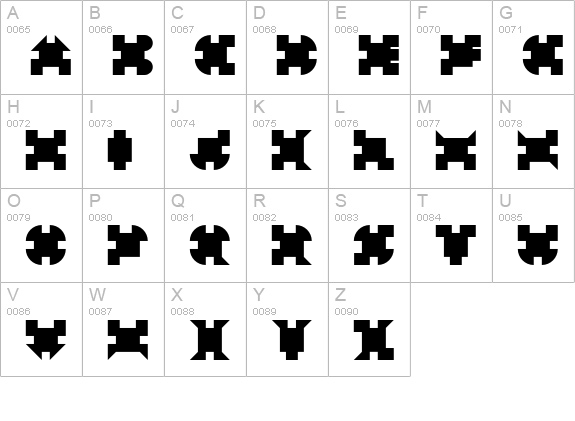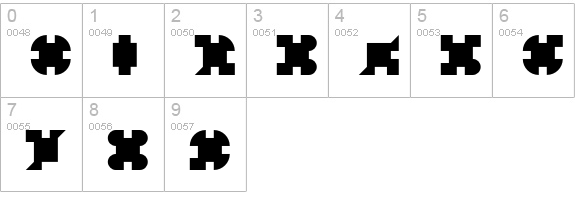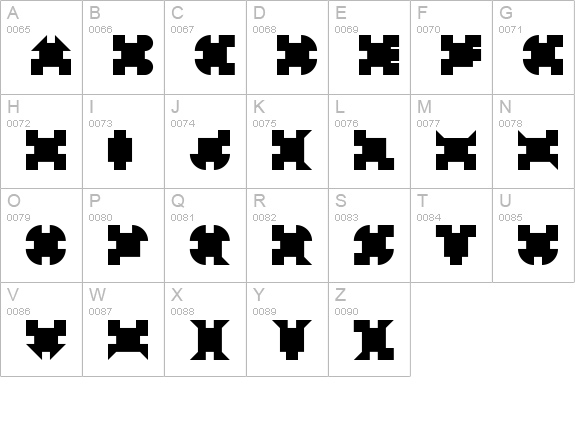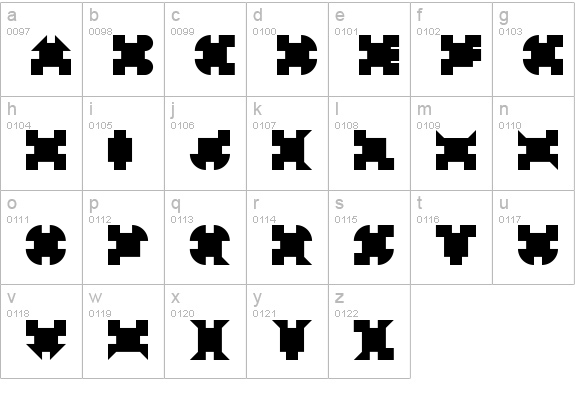
AlphaGeometrique-Black Font Details
AlphaGeometrique-Black is a maximum-weight, dramatic variant in the AlphaGeometrique typeface family \xE2\x80\x94 well suited to maximum-impact headlines, posters, and packaging.
AlphaGeometrique-Black is a modern and stylish font that exudes confidence and sophistication. Its bold geometric shapes and clean lines make it perfect for creating eye-catching designs that demand attention. The sleek and minimalist design of this font adds a touch of elegance to any project, whether it's for branding, advertising, or editorial purposes. One of the best things about AlphaGeometrique-Black is that it is completely free to download. You can get your hands on this beautiful font at FontsMarket.com and start using it in your projects right away. Don't miss out on the opportunity to enhance your designs with the striking beauty of AlphaGeometrique-Black. Download it now and let your creativity shine!